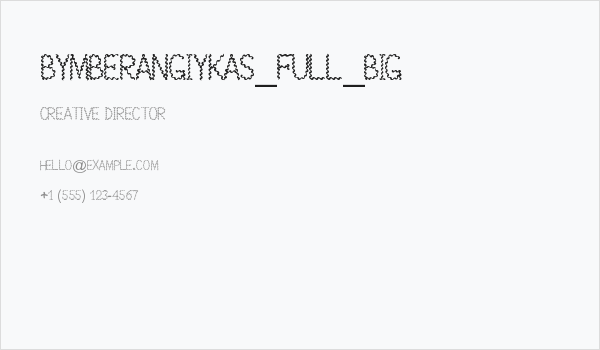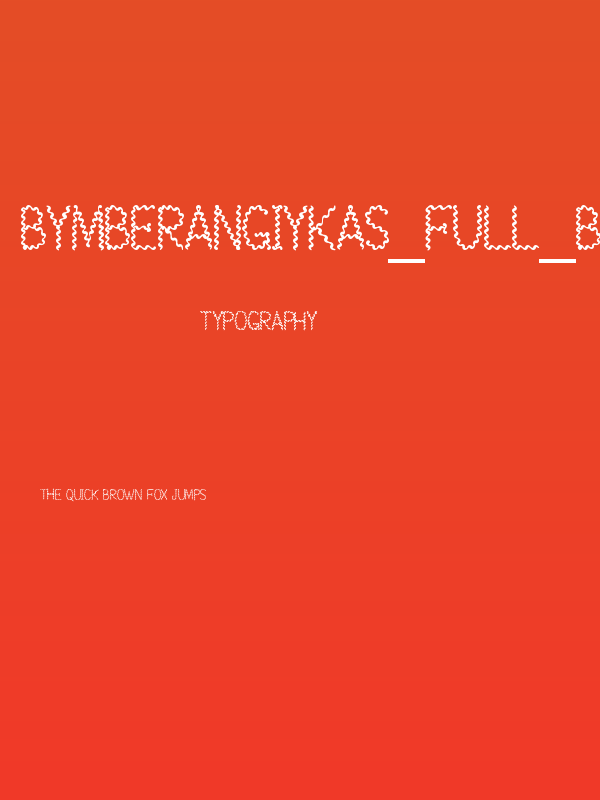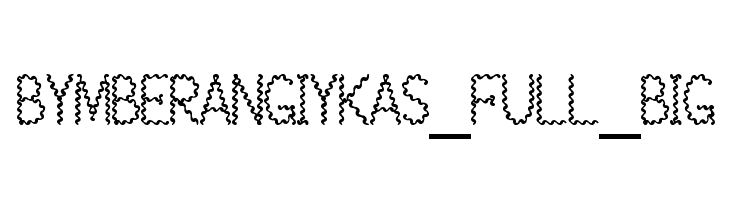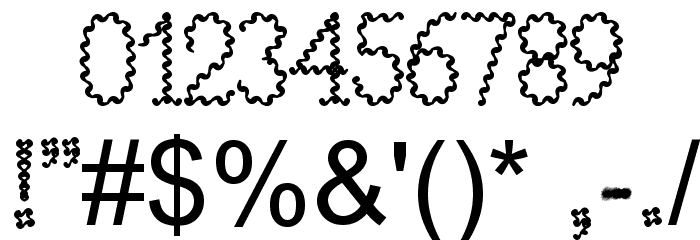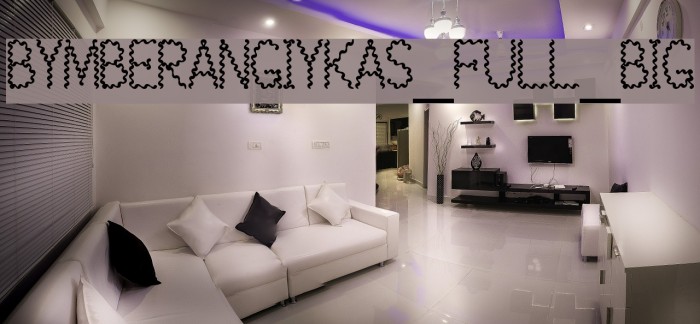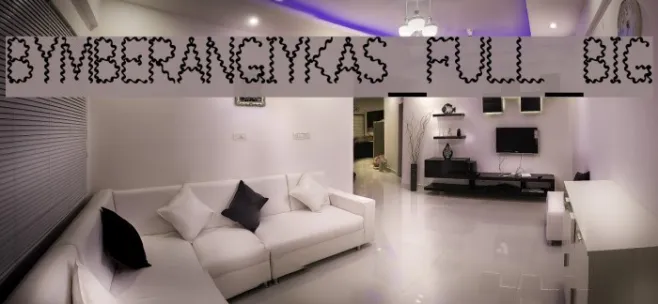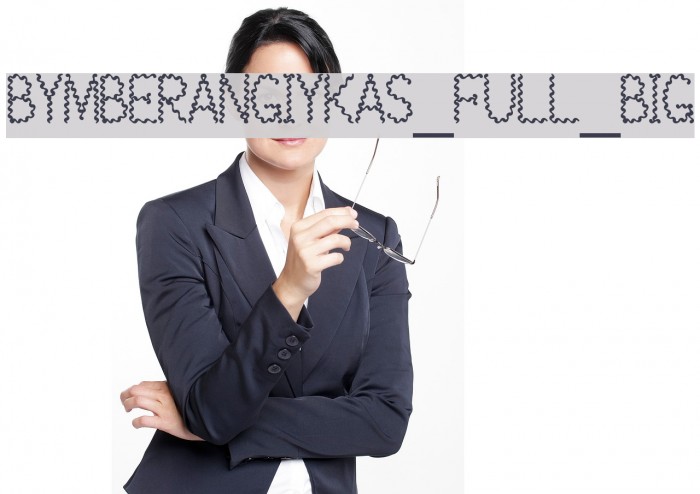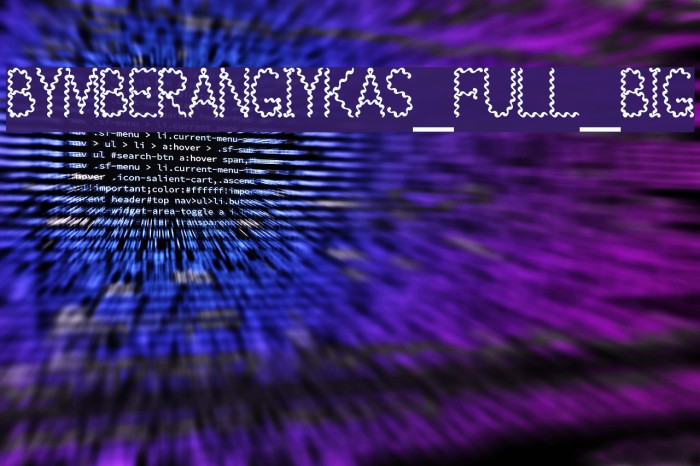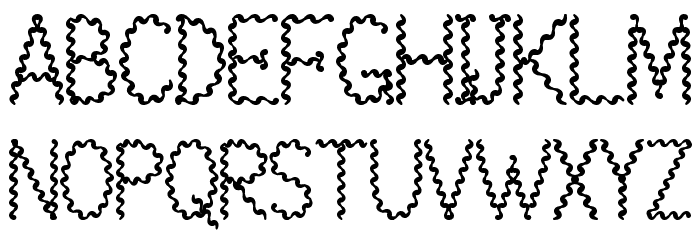
Bymberangiykas_Full_Big Font
Bymberangiykas_Full_Big Description
This font features a unique and playful design with wavy, zigzag outlines that give each character a lively and dynamic appearance. The letters are constructed with a consistent pattern of curves and angles, creating a sense of movement and energy. The uppercase and lowercase letters maintain a uniform style, while the numerals and special characters complement the overall aesthetic. This font's distinctive style makes it stand out, offering a whimsical and creative touch to any design project.
| Use Case | Logos, Headlines, Posters |
| Proposed Projects | Ideal for children's books, playful branding, party invitations, and creative posters. |